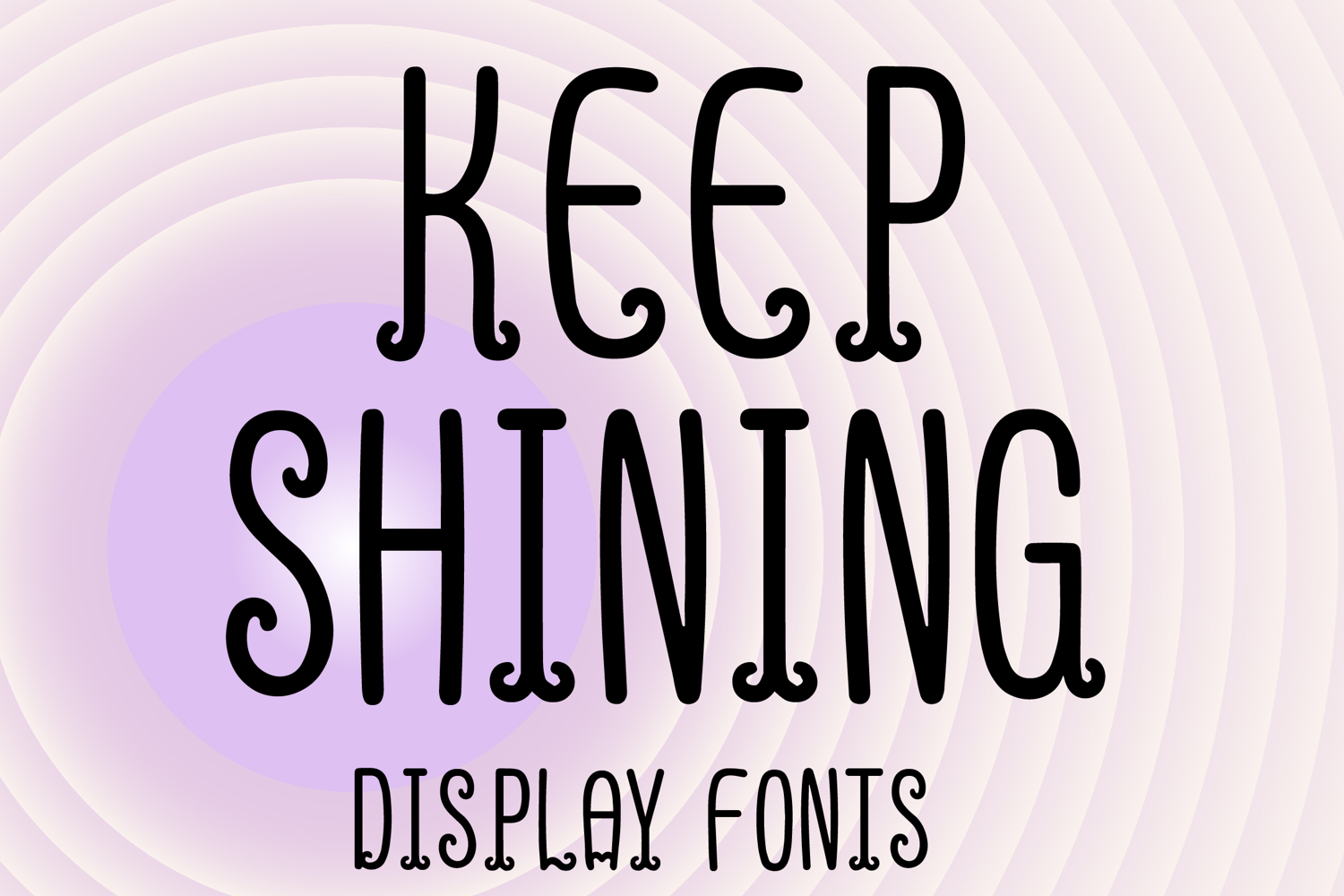
KEEP SHINING
KEEP SHINING is a playful decorative display font with a tall hand-drawn style and charming vintage-inspired flair. Its uppercase letterforms feature slim elongated strokes, soft rounded curves, and whimsical curled terminals that create a cheerful, elegant, and eye-catching look. Designed with uppercase letters A–Z and numbers 0–9, KEEP SHINING is perfect for branding, posters, packaging, invitations, logos, social media graphics, and creative projects that need a joyful and memorable statement.